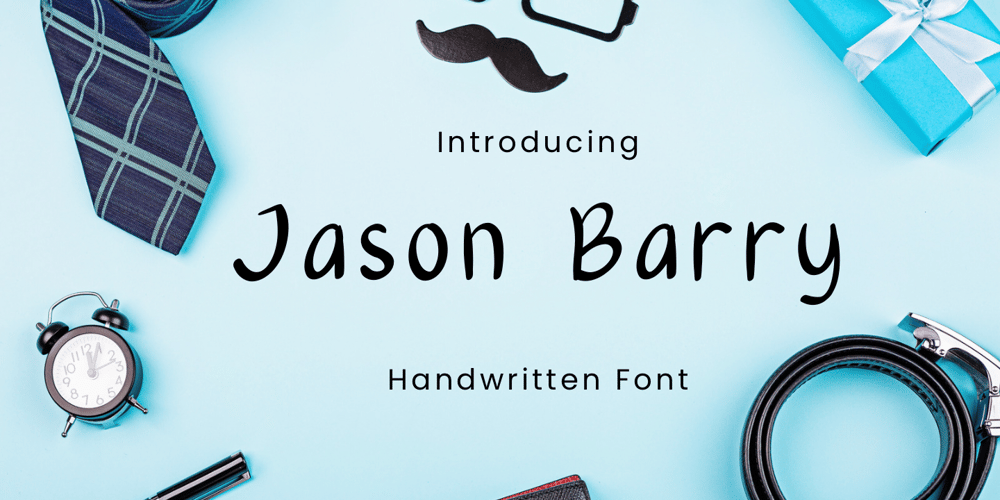
Jason Barry Font Family was designed by David Perkasya and published by Insan Perkasya. Jason Barry contains 1 styles and family package options. Jason Barry is a handwritten font with a simple and minimalist character. Crafted with sincerity, each letter reflects a friendly and full-of-character personality. This font is perfect for various designs, from greeting cards to branding projects that seek a minimalistic and appealing touch.If you have any question, please contact us.